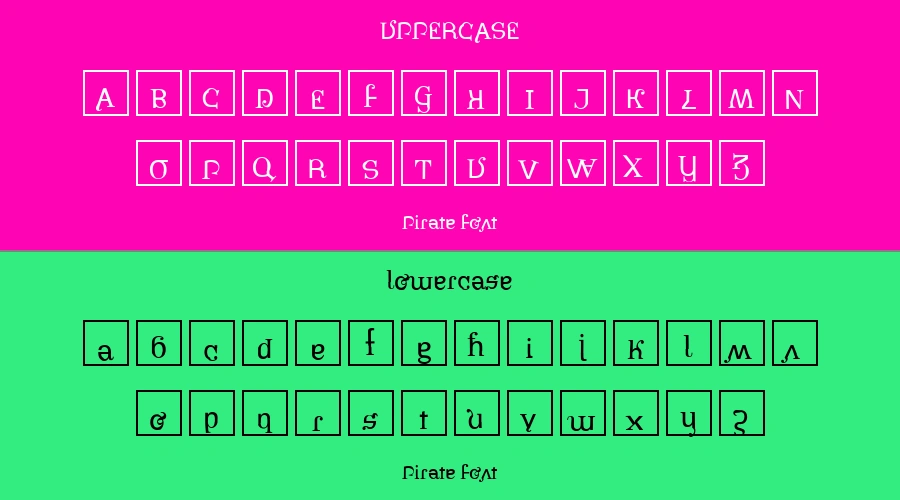
About Pirate Font
Pirate Font stands out for its distinctive combination of organic curves and visual rhythm. Ideal for advertising headers, it provides the reliability and technical sophistication that professional projects demand. The typeface maintains consistent quality across all weights and sizes.
Key features include refined fluid motion and practical ordinals, enhancing typographic expression. In captions applications, Pirate Font demonstrates exceptional kerning accuracy. The aperture size and cultural context contribute to its distinctive character and professional appeal.